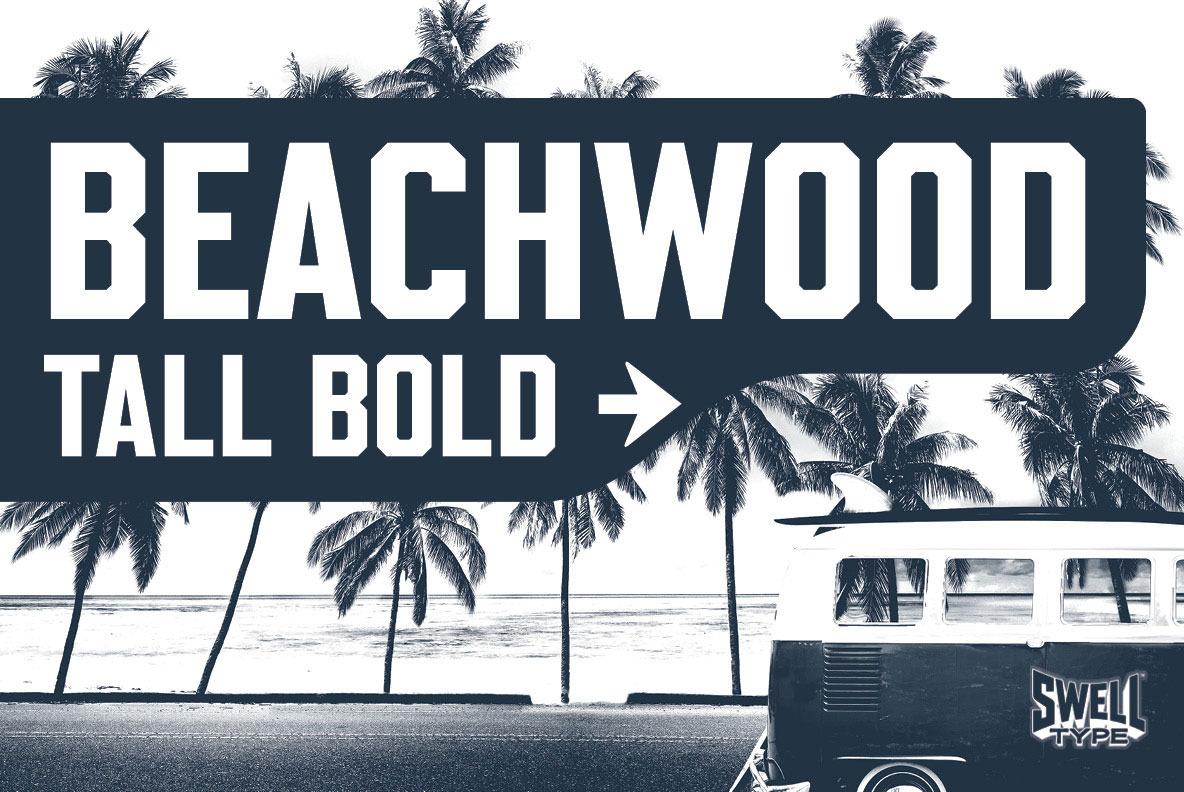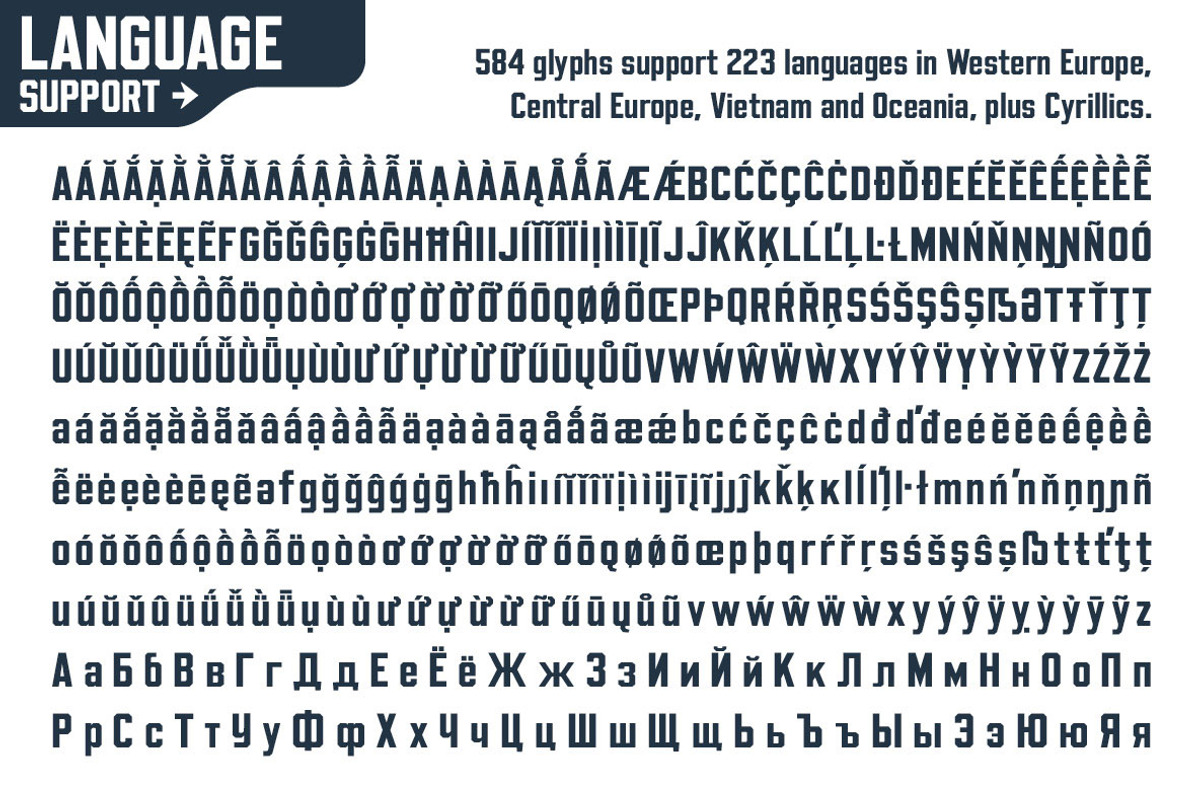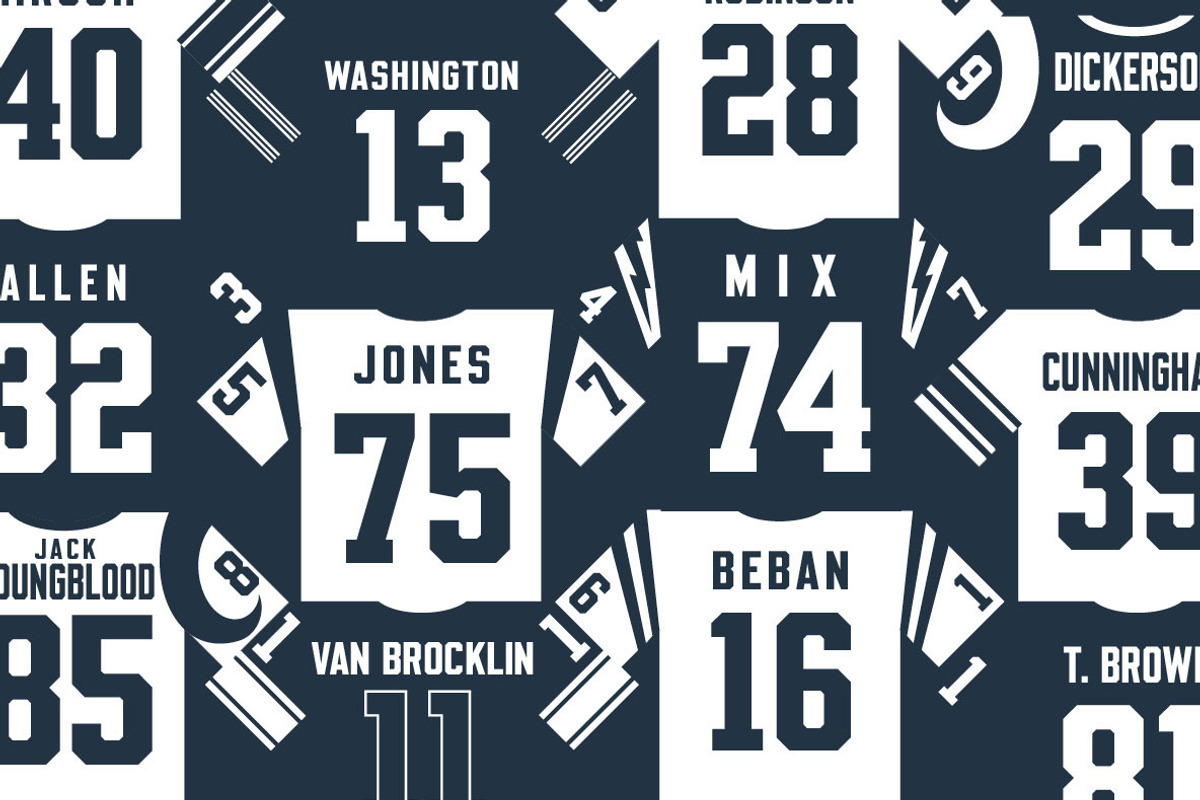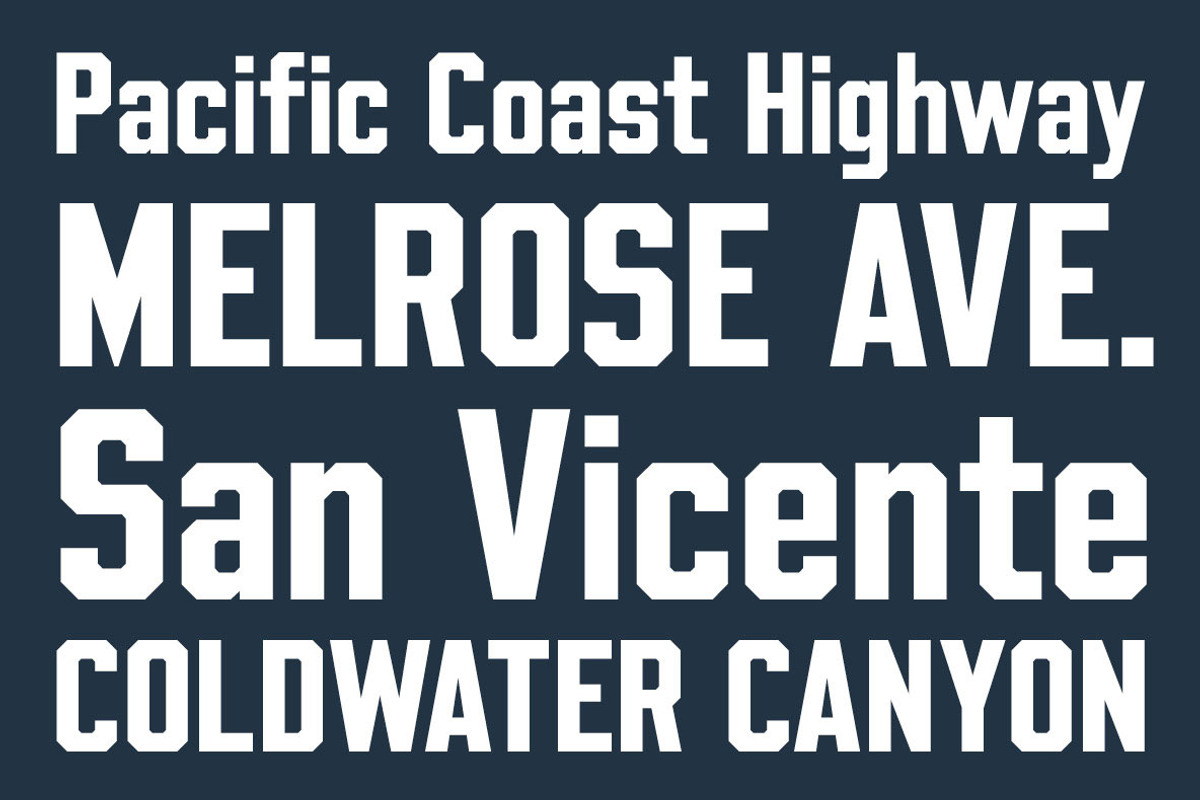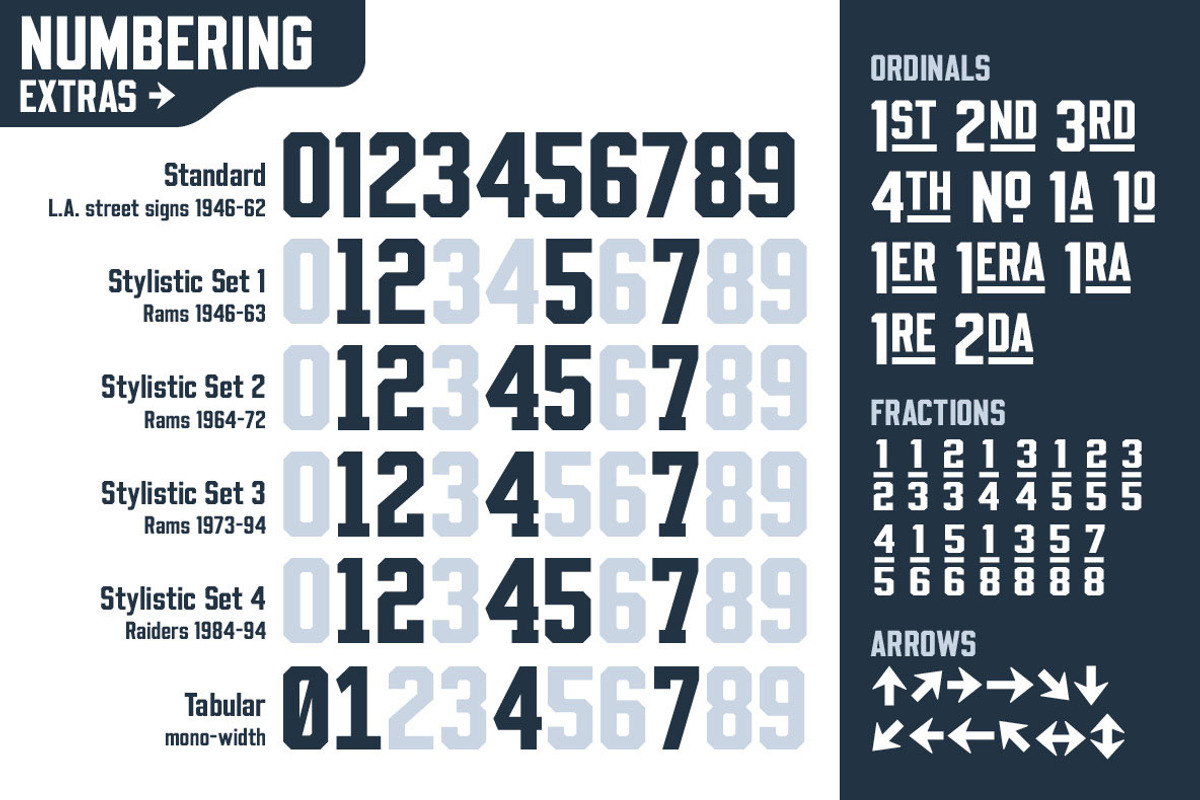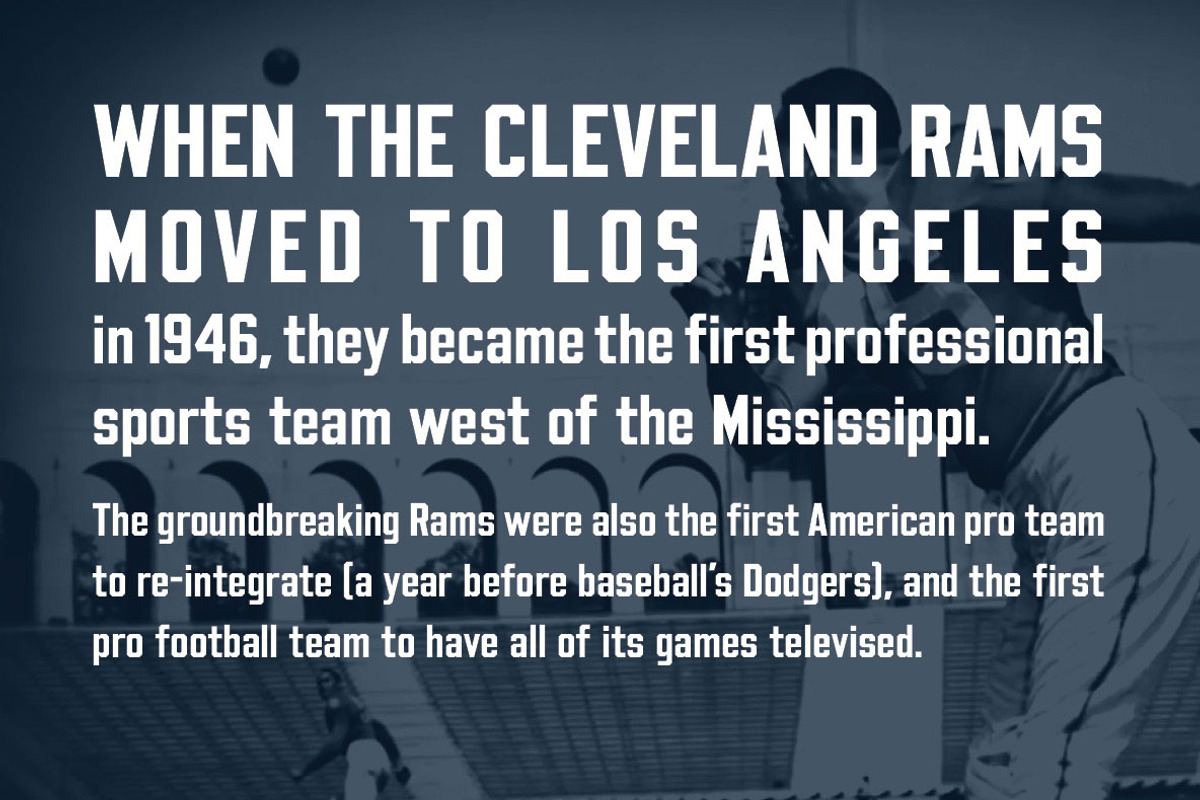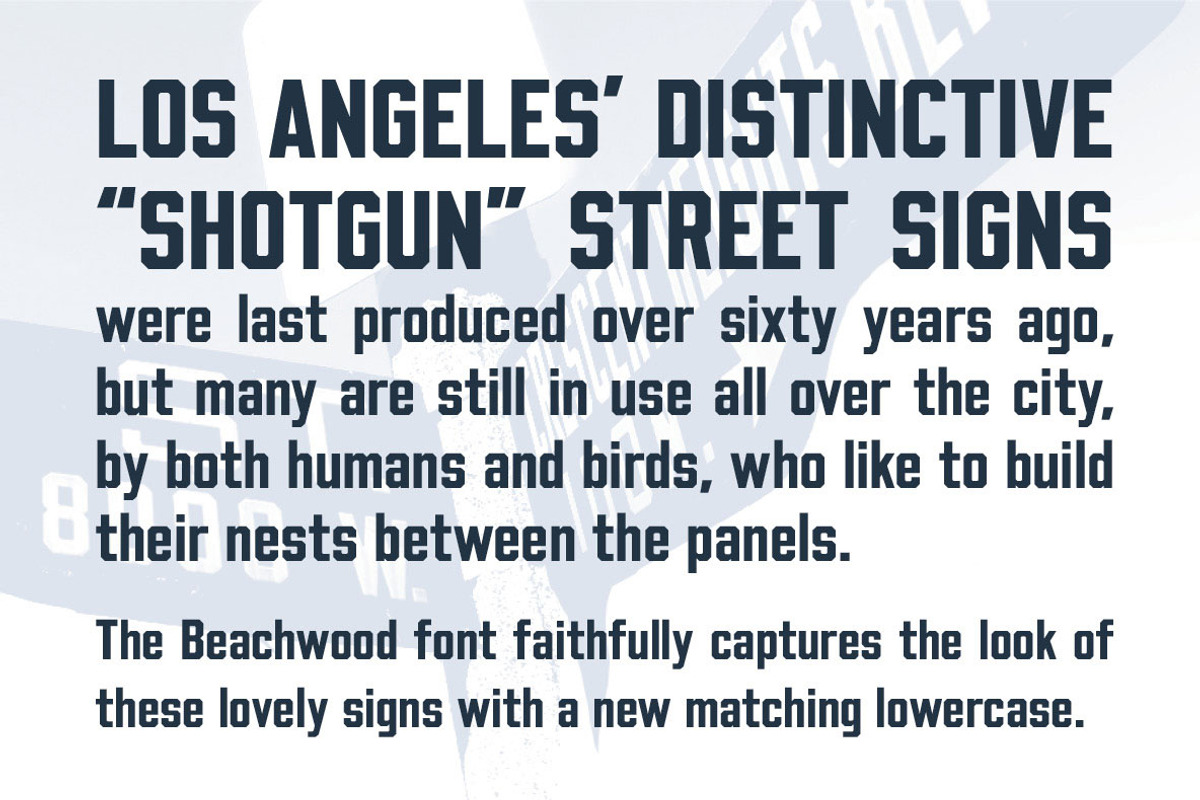
Beachwood - Los Angeles sign font
Los Angeles’ distinctive “shotgun” style street signs were last produced over sixty years ago, but these durable porcelain and steel signs are still in use all over the city, by both humans and birds, who like to build their nests between the panels.
The Beachwood font faithfully captures the look of these vintage signs with a new matching lowercase. In addition to numbers based on the street signs, Beachwood includes four alternate number sets based on the jersey styles of Los Angeles' pro football teams.
Beachwood is named for Beachwood Drive in Los Angeles, the street with a perfect view of the famous HOLLYWOOD sign. Choose Opentype Stylistic Set 5 to activate HOLLYWOOD MODE!
- 584 glyphs to support 223 languages in Western Europe, Central Europe, Vietnam and Oceania, plus Cyrillics
- Five styles of numbers, plus Tabular Lining for screen display
- Ordinals, Fractions and Arrows
- Hollywood mode